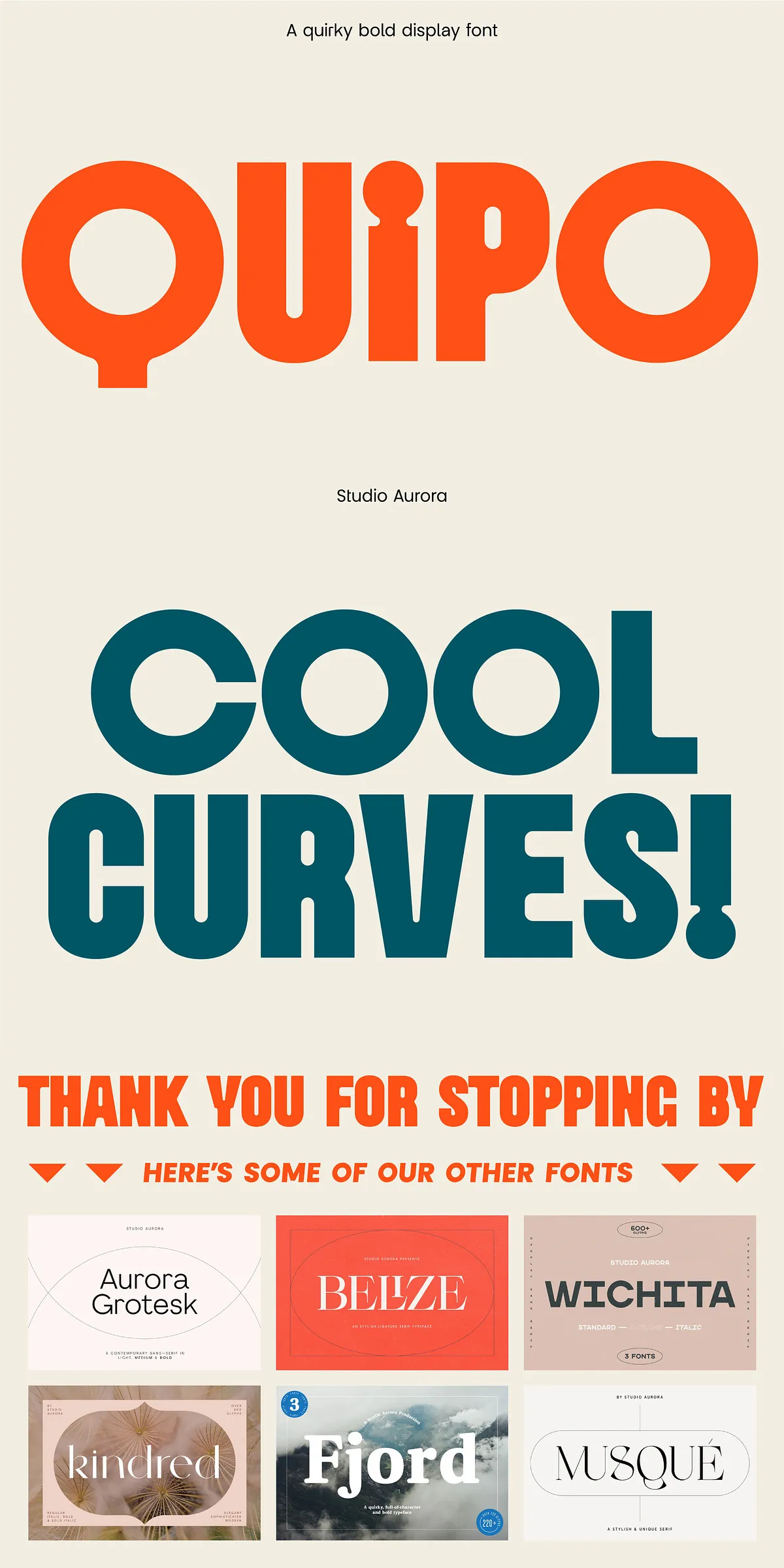
In a world saturated with predictable typefaces, Quipo stands out like a neon-lit whisper in a midnight city—unexpected, bold, and impossible to ignore. This is not just a font; it’s a statement. Designed for creators who crave visual dynamism and fearless design energy, Quipo combines sleek curves, exaggerated weight, and playful asymmetry into a single, high-impact display typeface. Whether you’re building a brand identity, launching an email campaign, or crafting a magazine cover that demands double-takes, Quipo delivers instant recognition, unmatched attitude, and undeniable edge.
Engineered for Impact: What Makes Quipo So Unmissable?
Every curve in Quipo is intentional. Every stroke has purpose. Unlike standard sans serifs that strive for neutrality, Quipo revels in personality—curving, bending, and bending the rules of typography to serve your creative vision. Its thick, bold structure makes it an ideal choice for headlines, logos, and branding elements that need to cut through digital noise and physical clutter. The subtle, deliberate inconsistencies in thickness and spacing create a handcrafted feel—like a sign painted by a bold artist in a retro arcade.
Rich Feature Set for Maximum Creative Freedom
- Full Uppercase Glyphs: Designed for strong, clean headlines and impactful branding. Each uppercase letter is sculpted for visibility and style.
- Alternate Lowercase Glyphs: Offered to add variety and prevent visual monotony—perfect when you want to mix whimsy with structure.
- Complete Punctuation & Numbers: Ensures every sentence, quote, or data point looks on-brand and polished.
- Advanced Character Set: Includes full support for special symbols and decorative elements to elevate your design language.
Where Quipo Shines: Real-World Creative Applications
Quipo isn’t limited to a single use—its character-rich nature makes it perfect for a wide array of design disciplines where boldness and modern flair are critical.
Brand Identity & Logo Design
Develop a logo that doesn’t just say your name—it makes a scene. Quipo’s curved forms and dynamic strokes deliver instant memorability. Use it for fashion labels, tech startups, music brands, or lifestyle products where standing out is non-negotiable.
Magazine Headers & Editorial Design
Grab attention from across the newsstand. Quipo works wonders as a masthead, feature headline, or pull-quote in print and digital publications. Its visual weight ensures it dominates layouts without overwhelming content.
Marketing Campaigns & Email Design
Boost open rates and engagement with subject lines and banners that pop. Quipo adds a fun yet professional twist to email headers, promotional banners, and landing pages—making your message impossible to scroll past.
Event Posters & Social Media Graphics
Turn Instagram posts, posters, and flyers into viral assets. Use Quipo for event titles, countdowns, and call-to-action buttons—where every pixel pulls attention toward your content.
Use Quipo to build logos that linger in the mind. Craft headlines that stop the scroll. Launch campaigns that turn heads. With Quipo, every character carries weight. Every word makes an impression.